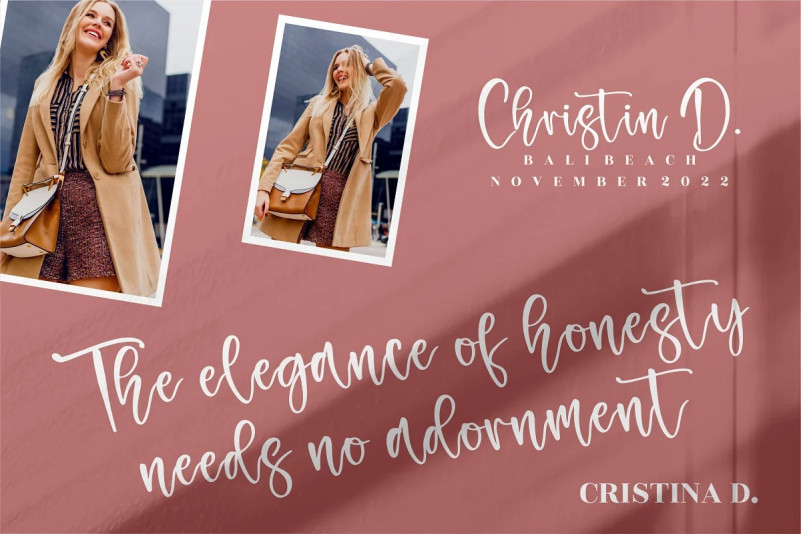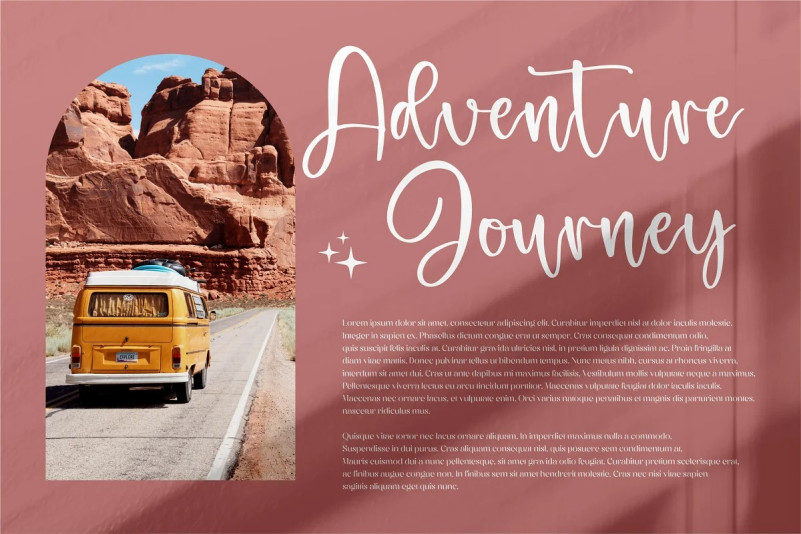
Someday Script Font
Someday, a handwritten font that is the right choice for watermarks on photography, signature or logo design signatures, quotes, album covers, business cards, and many other design projects.